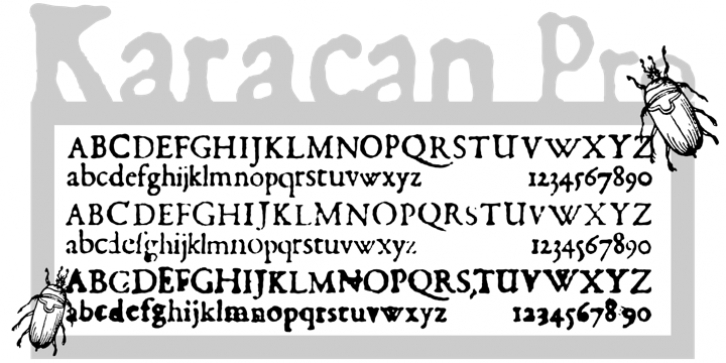
Piotr Wozniak
Classical font inspired with the antique book from 1689.
Includes many OpenType features and 444 characters: alternate glyphs, ligatures, ornaments, accented characters.